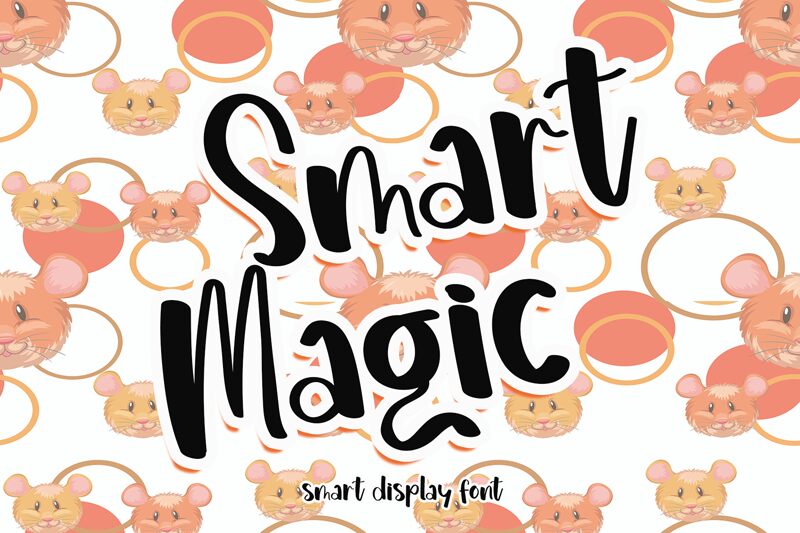
Smart Magic font is a free script font from creatype designer who let their idea flow to bring you this charming script. The exceptional handwritten designs allow you to highlight your personality and to send the artistic message you want along with a clear message. And since it’s delivered in a regular style, having a consistent project becomes a task of ease.
Type like you mean it and create cheerful headlines and logotypes, and engaging branding and packaging projects, combining this font with vibrant colors and cheerful illustrations, or use it for your invitation and greeting card designs.
This font retains a classy calligraphic influence while feeling contemporary and fresh. Its versatility makes it ideal for a wide range of creative applications, including letterheads, titles, and stationery.